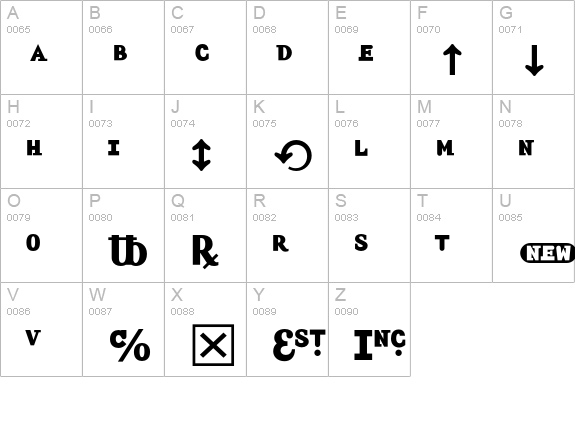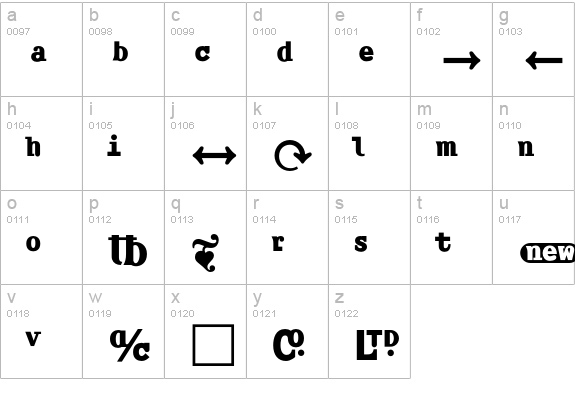
AmplifierBoldExtensions Font Details
AmplifierBoldExtensions is a modern and versatile display font that exudes strength and boldness. With its clean lines and sharp edges, this font is perfect for making a statement in headlines, logos, posters, and more. The AmplifierBoldExtensions font is freely available to download at FontsMarket.com, allowing you to easily incorporate this powerful typeface into your design projects. Whether you need a font that commands attention or adds a touch of sophistication, AmplifierBoldExtensions delivers with its bold and impactful presence. Stand out from the crowd and elevate your designs with the AmplifierBoldExtensions font today.